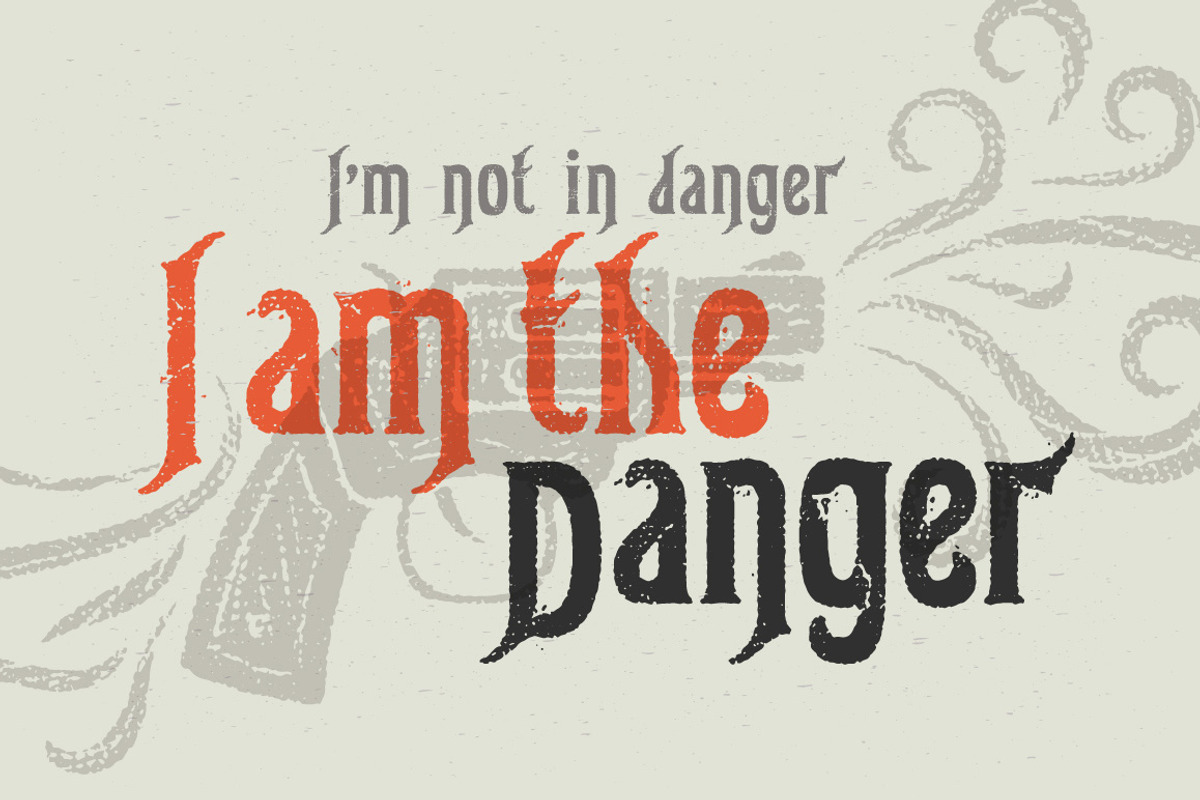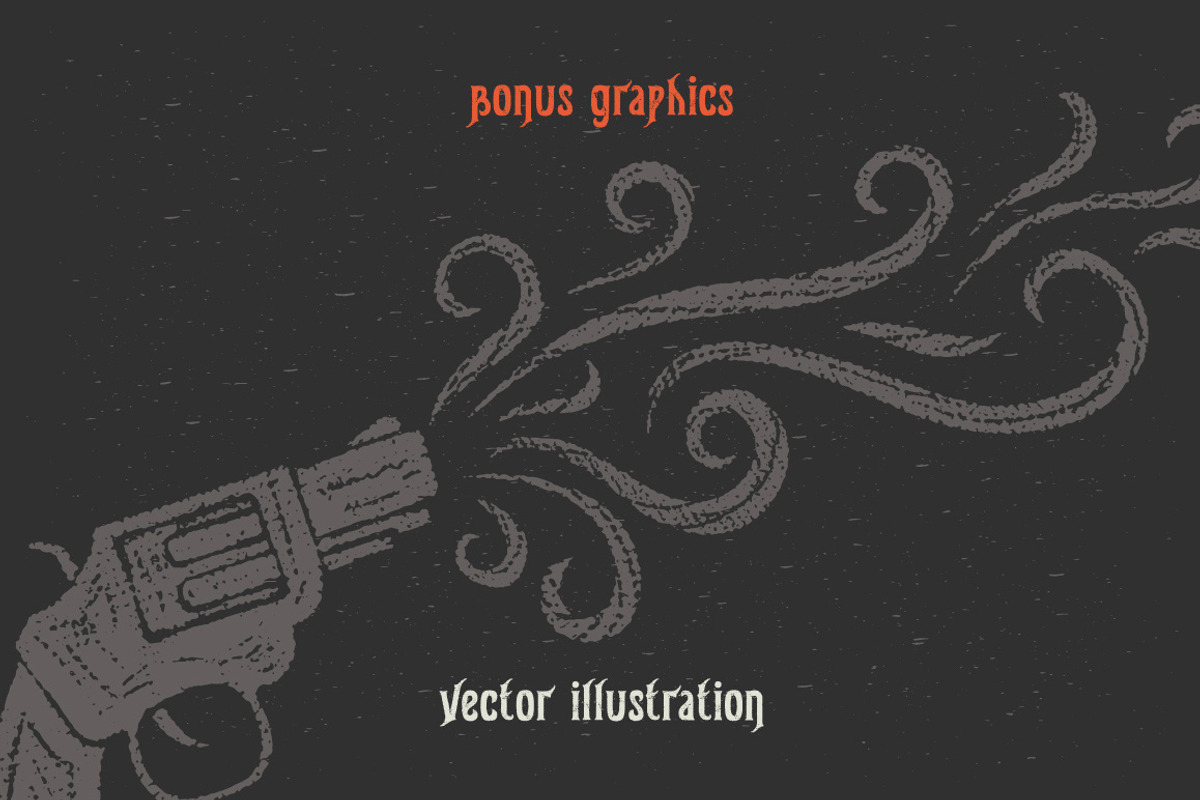
Gunshot typeface
Gunshot typeface by Gleb Guralnyk is a font selected for branding, posters, packaging, typography.
- Also a vector illustration is included as a bonus.
- It has two style variations with clean and rough characters.
Why Gunshot typeface is worth a look
Gunshot typeface by Gleb Guralnyk fits naturally into Branding, posters, packaging, typography.